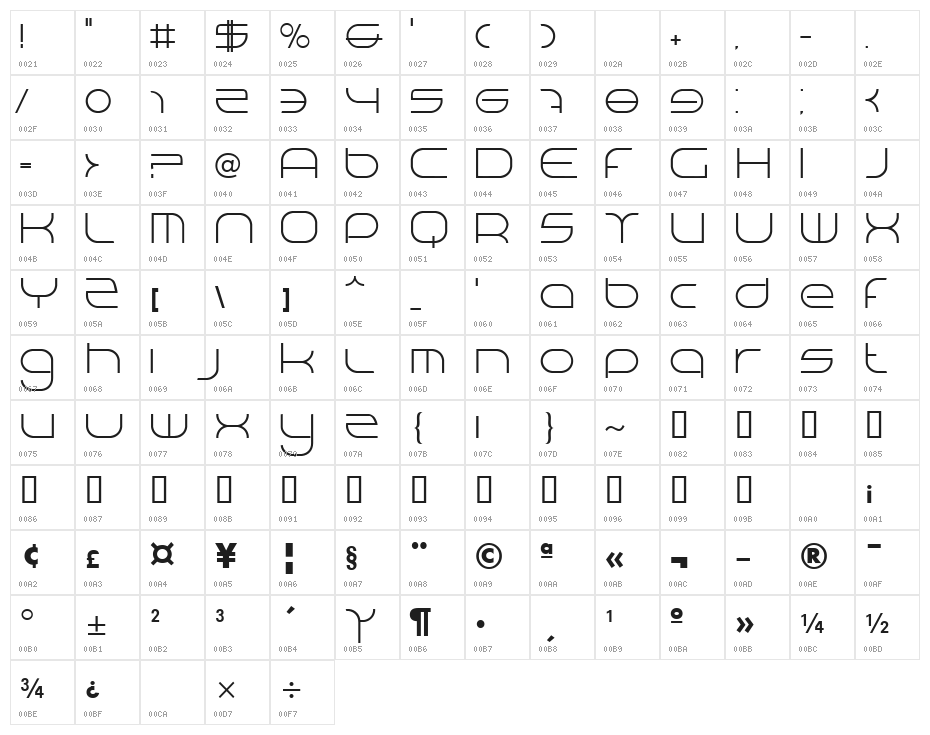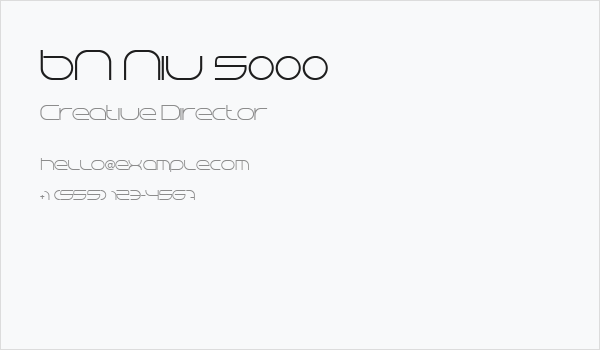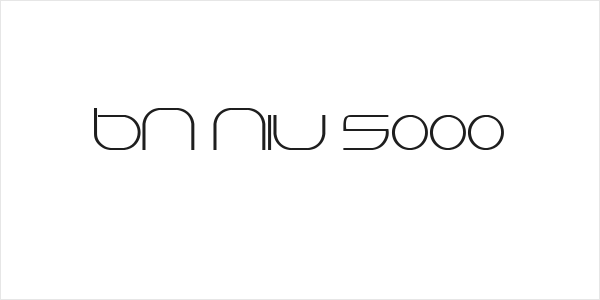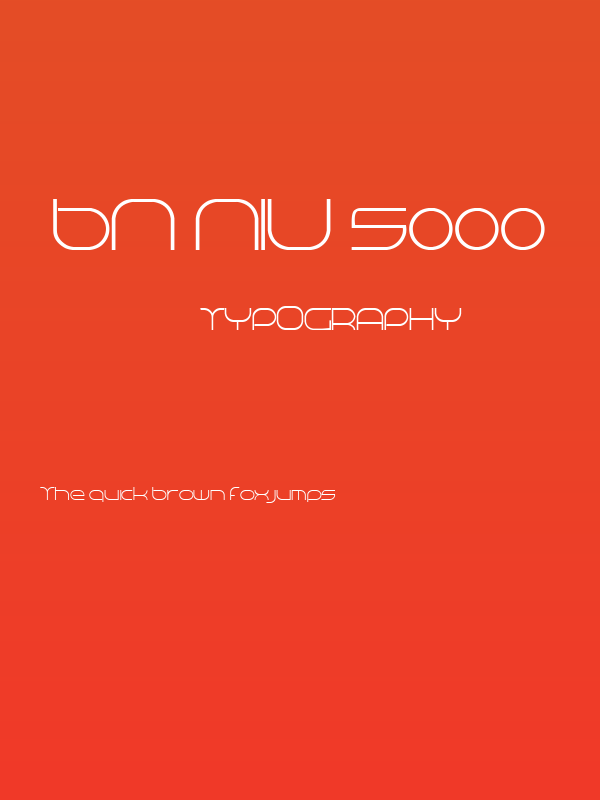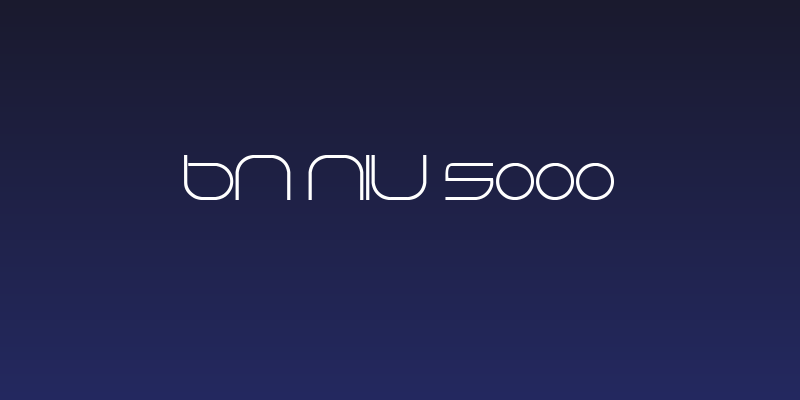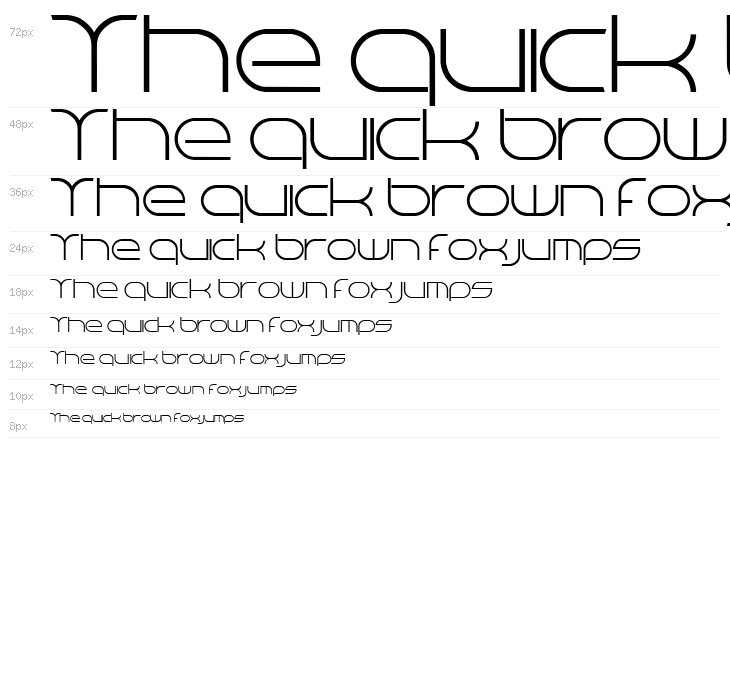
BN Niv 5000 Font
BN Niv 5000 Description
This font features a sleek, futuristic design with geometric elements and a minimalist aesthetic. The characters are composed of thin lines and rounded edges, creating a modern and streamlined appearance. The uppercase and lowercase letters maintain a consistent style, with a unique approach to curves and angles that gives the font a distinctive look. The numerals and special characters follow the same design principles, ensuring a cohesive visual experience. This font is ideal for projects that require a contemporary and innovative touch.
| Proposed Projects | Ideal for technology branding, modern advertising, sci-fi themed projects, and innovative product packaging. |